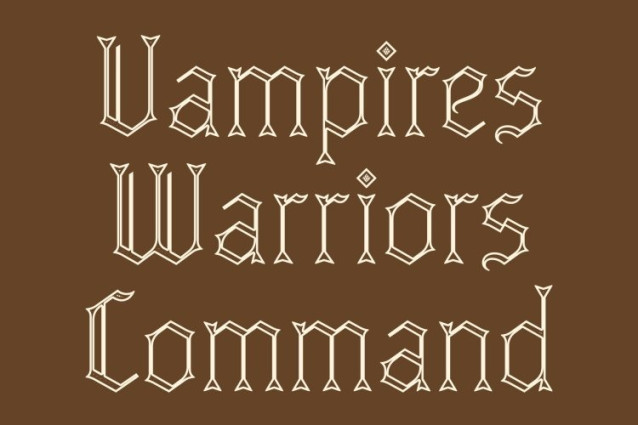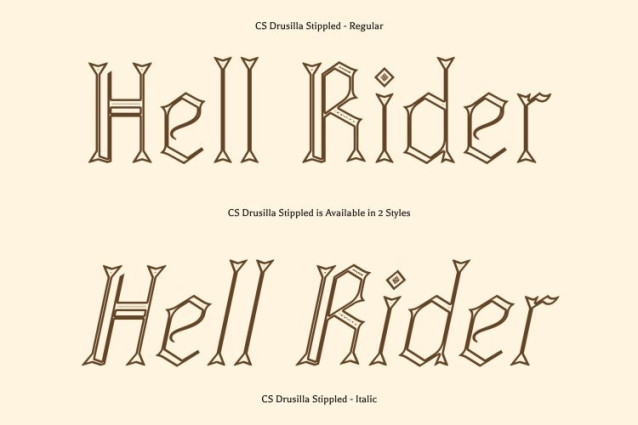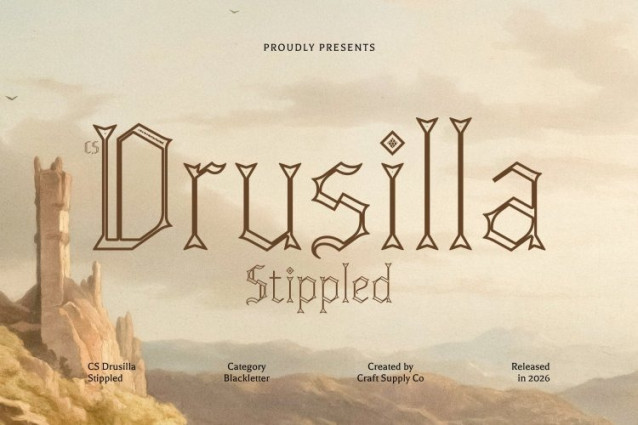
CS Drusilla Stippled Font
CS Drusilla Stippled Font – This is a modern blackletter display font that fuses the dramatic flair of Gothic calligraphy with a contemporary, streamlined design. It preserves blackletter’s defining characteristics sharp angles, broken strokes, and strong rhythmic forms while refining them through a cleaner structure.
Minimalist Structure with Bold Character
While remaining faithful to its historical roots, reduces excessive ornamentation to achieve a more balanced and modern silhouette. The simplified forms and thoughtful spacing enhance readability while maintaining the bold visual authority associated with blackletter typography. The textured stippled finish further emphasizes its artistic character, adding a tactile quality that complements the font’s angular structure.
Edgy Style for Expressive Design
With its sharp forms and powerful rhythm, this font delivers a dramatic typographic presence. The combination of gothic heritage and textured detailing creates a font that feels both intense and refined, making it ideal for projects that seek a bold yet artistic visual identity.
Perfect for Contemporary Gothic Projects
This font works beautifully for music branding, underground publications, editorial layouts, posters, merchandise, and fashion campaigns. By merging historical blackletter aesthetics with modern minimalism and stippled texture, the font offers a distinctive style that feels both timeless and strikingly contemporary.